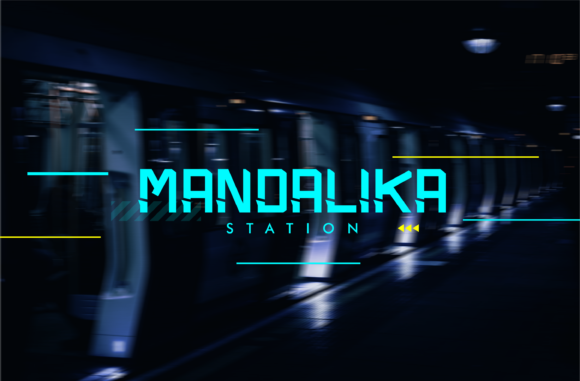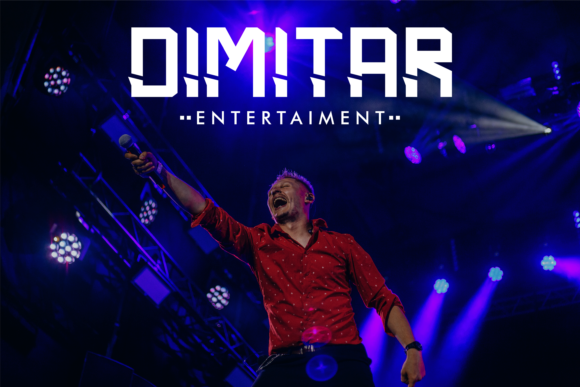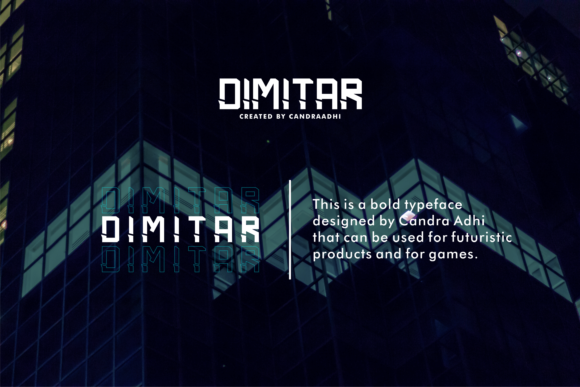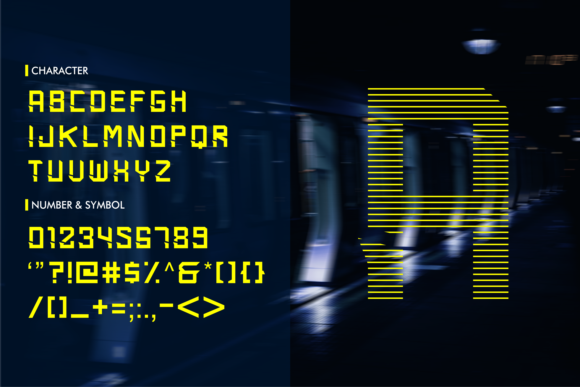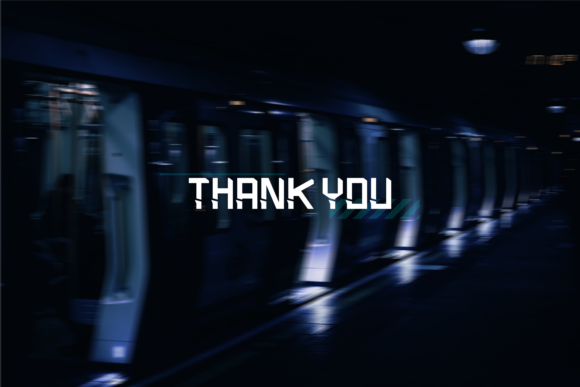
Introducing Dimitar Font: The Bold and Futuristic Display Font
In the world of typography, a good font can make all the difference in the success of a design project. Whether you’re a graphic designer, a crafty DIY enthusiast, or a digital artist, having the right font at your disposal can elevate your work from ordinary to extraordinary. This is where Dimitar Font comes in – a bold and futuristic display font that’s about to become your new go-to choice.
What is Dimitar Font?
Dimitar is a geometric display font that exudes a sense of modernity and sophistication. Its bold and futuristic design makes it perfect for a wide range of applications, from branding and advertising to packaging and digital media. The font’s geometric style gives it a clean and edgy look that’s sure to grab attention and leave a lasting impression.
Key Features of Dimitar Font
- Bold and Futuristic Design: Dimitar’s bold and futuristic design makes it perfect for headlines, titles, and other display purposes.
- Geometric Style: The font’s geometric style gives it a clean and edgy look that’s perfect for modern designs.
- Versatility: Dimitar is suitable for a wide range of designs, from minimalist and sleek to bold and playful.
- Easy to Read: Despite its bold design, Dimitar is easy to read, even at smaller sizes.
Use Cases for Dimitar Font
Dimitar’s versatility makes it suitable for a wide range of design projects. Here are some use cases where Dimitar Font shines:
- Branding and Logo Design: Use Dimitar to create a bold and memorable logo that stands out from the crowd.
- Advertising and Marketing: Dimitar’s futuristic design makes it perfect for advertising and marketing materials, such as billboards, posters, and social media ads.
- Packaging Design: Add a touch of modernity to your packaging design with Dimitar’s clean and edgy look.
- Digital Media: Use Dimitar to create eye-catching titles and headlines for your digital media projects, such as video games, animations, and websites.
Tips for Using Dimitar Font
To get the most out of Dimitar Font, here are some tips to keep in mind:
- Use it as a Display Font: Dimitar is designed to be used as a display font, so use it for headlines, titles, and other prominent text.
- Experiment with Colors: Dimitar’s bold design looks great in a variety of colors, so don’t be afraid to experiment and find the perfect color scheme for your design.
- Pair it with Other Fonts: Dimitar pairs well with a variety of fonts, so try pairing it with a sans-serif font for a modern look or a serif font for a more traditional look.
In conclusion, Dimitar Font is a bold and futuristic display font that’s perfect for designers and crafters looking to add a touch of modernity to their work. Its geometric style, versatility, and ease of use make it a great addition to any design project. Whether you’re working on a branding project, an advertising campaign, or a digital media project, Dimitar Font is sure to become one of your go-to choices.